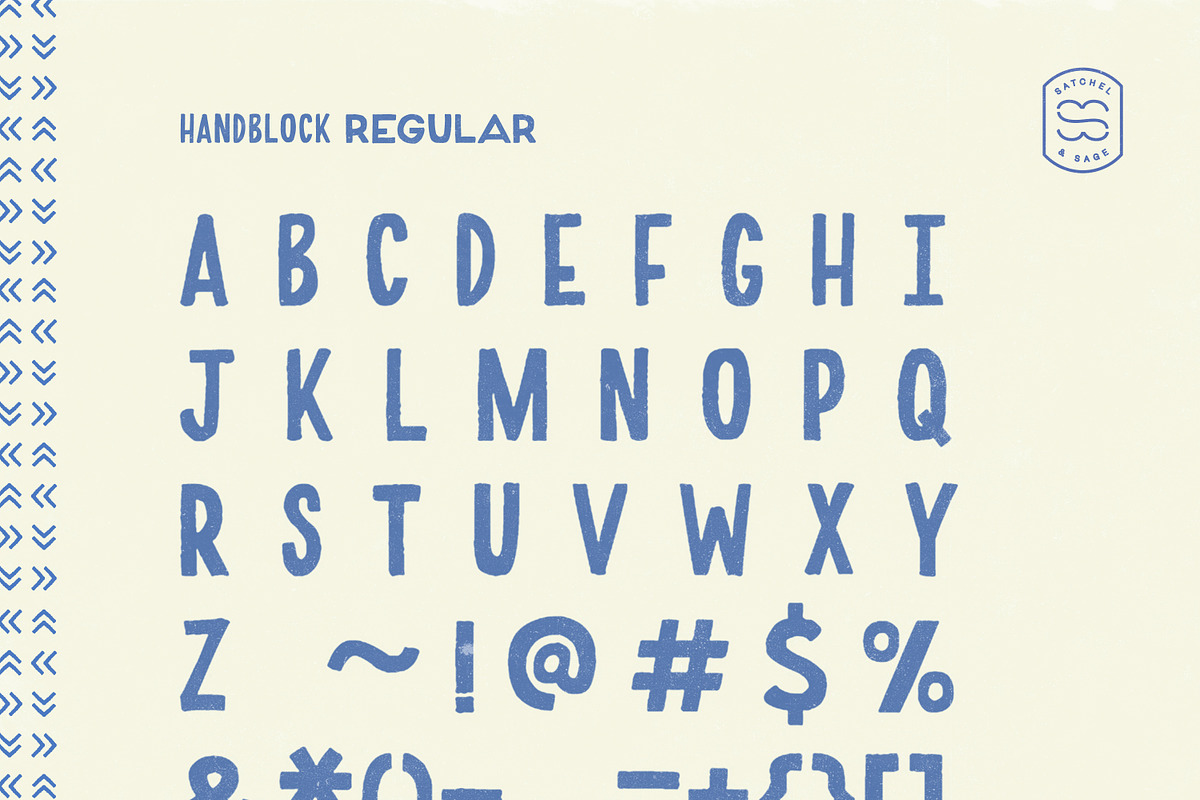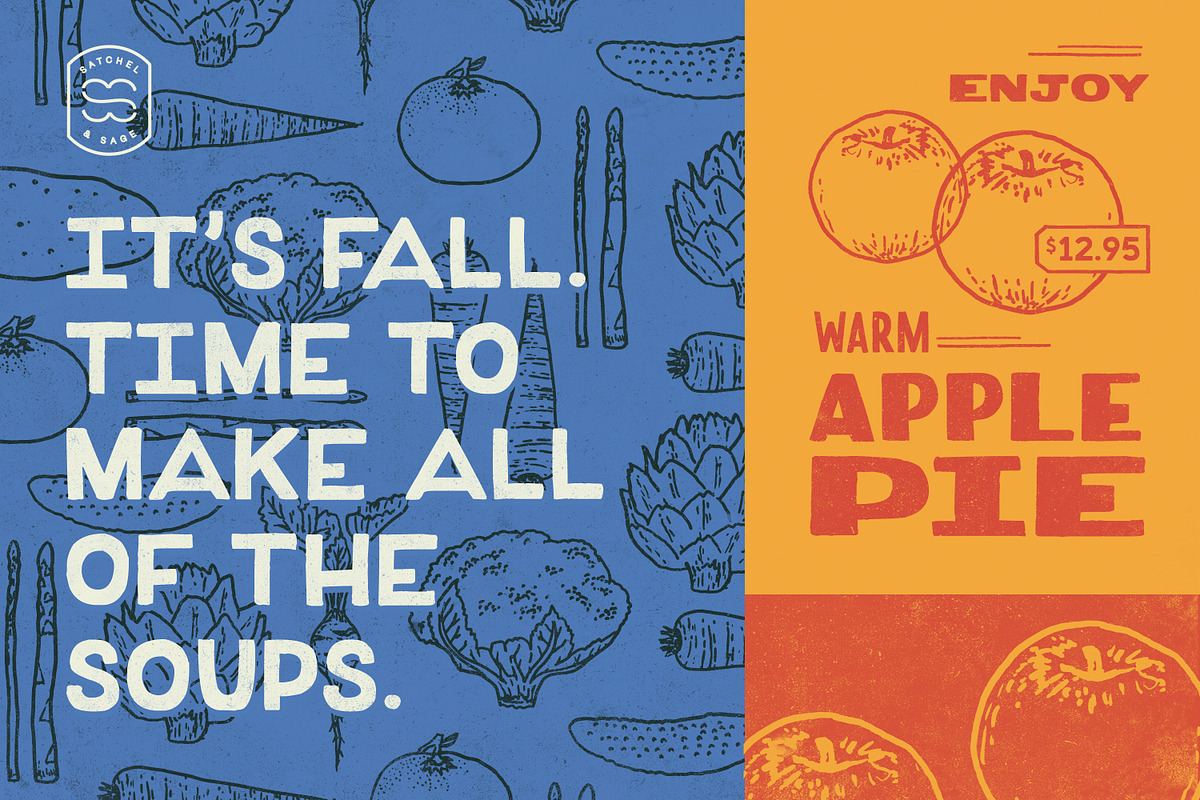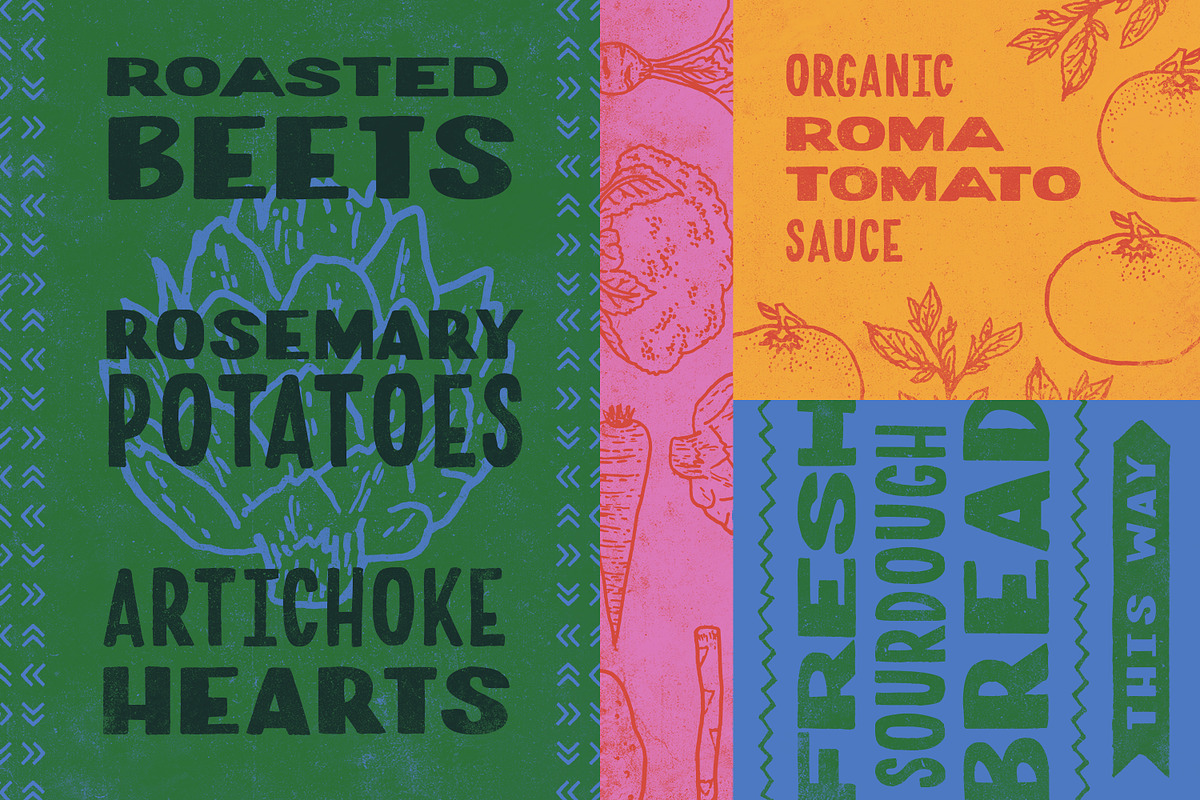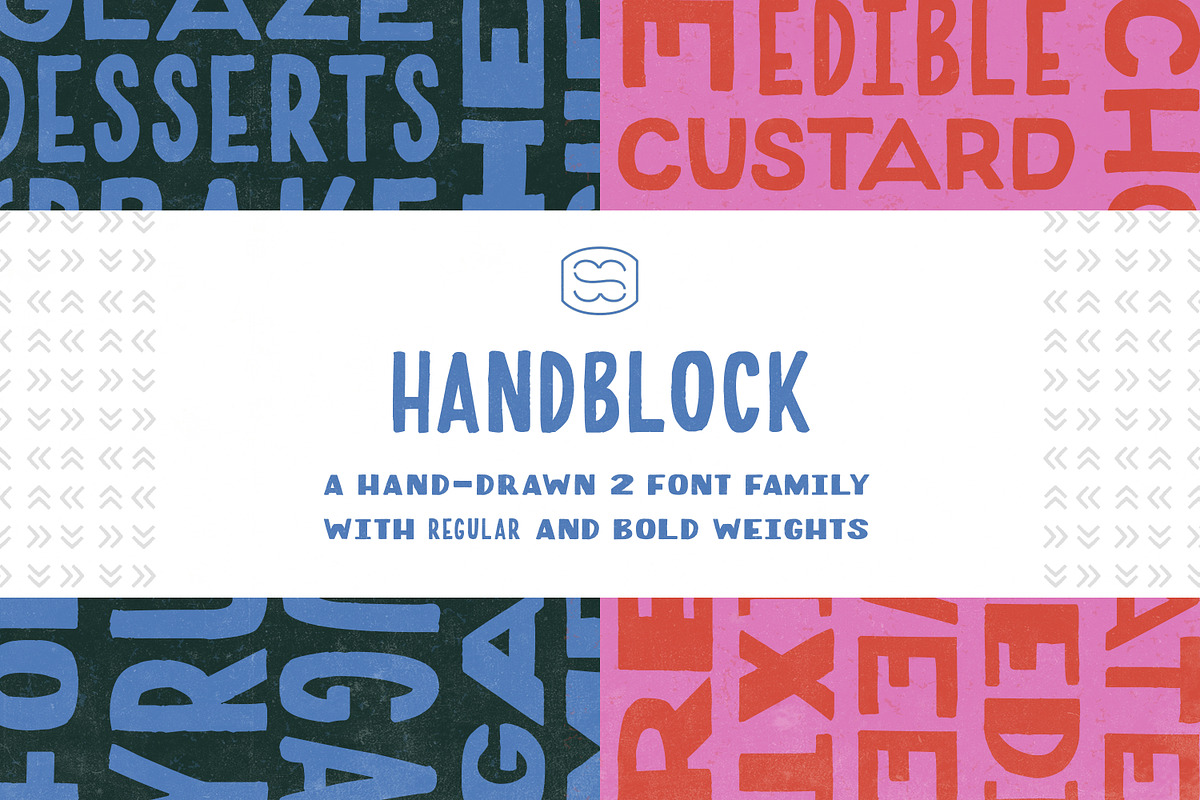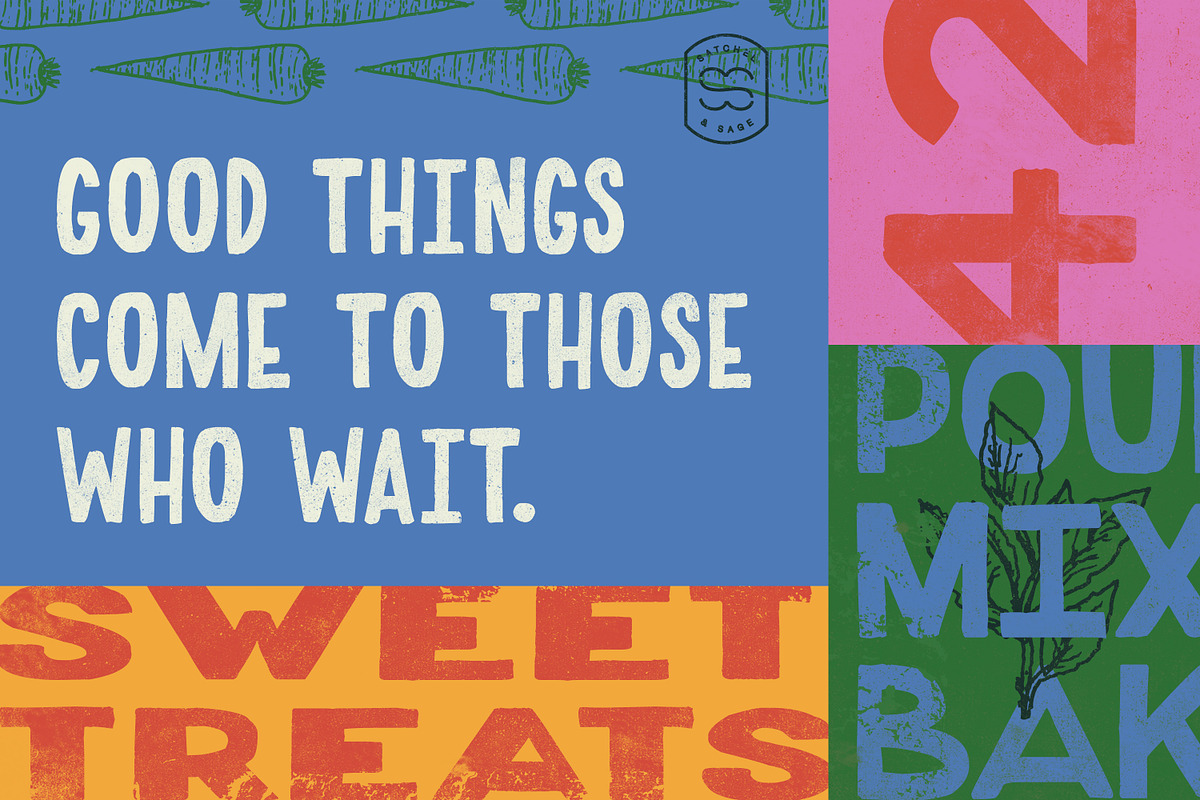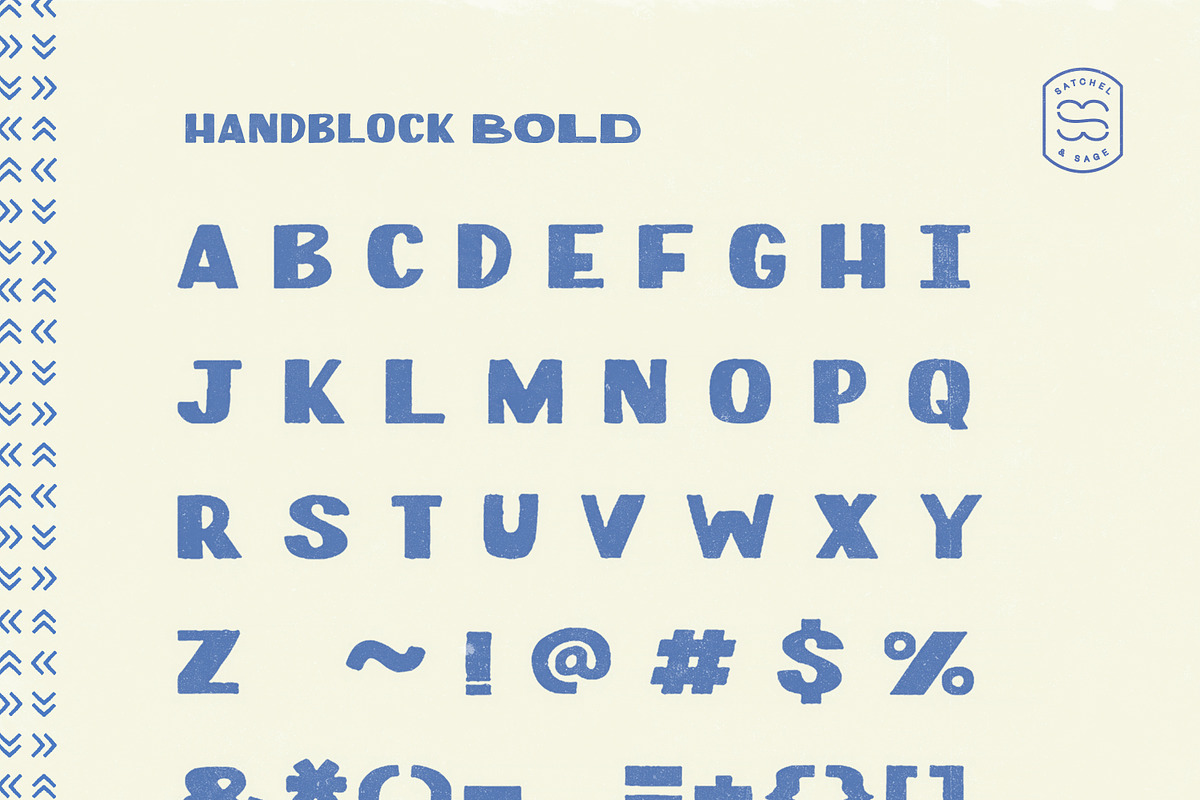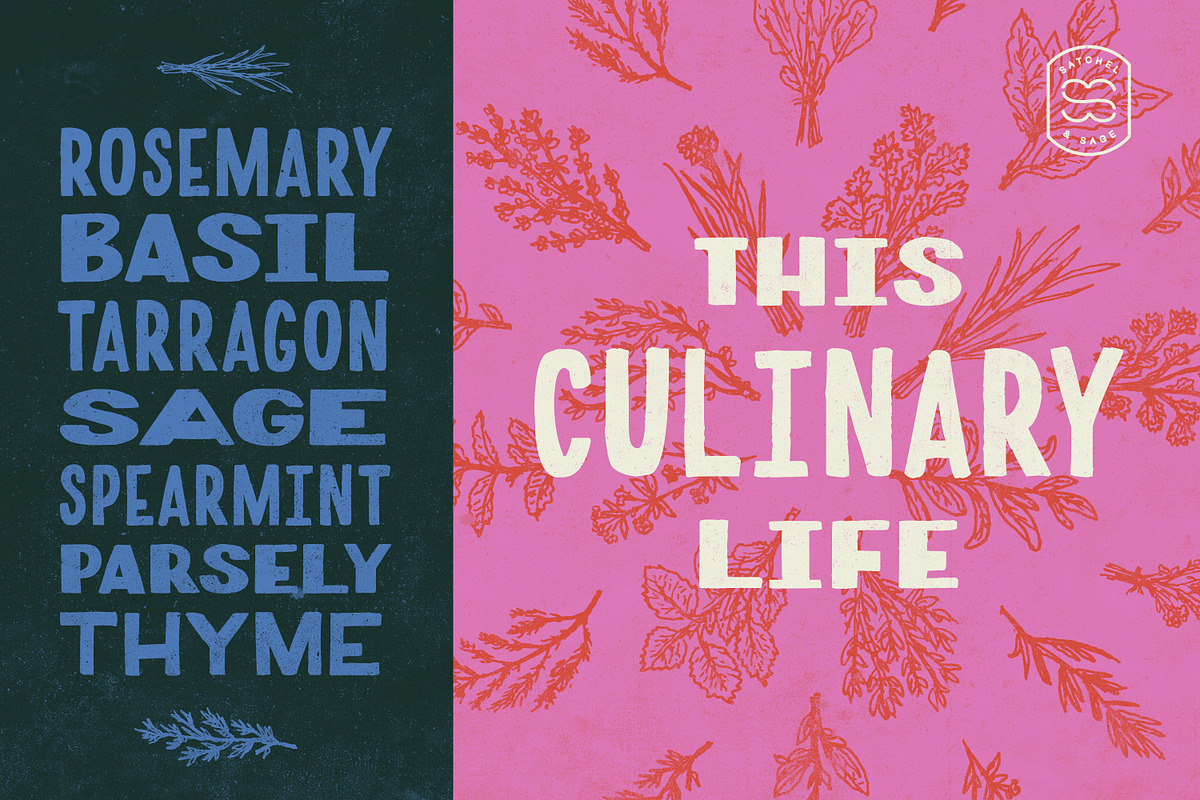
HandBlock Bold & Regular
HandBlock is a pair of playful, stout, hand-drawn display typefaces inspired by historic wood type printmaking. Both fonts offer two weights in each file — thinner for lowercase and thicker for uppercase — making it perfect to create multi-weight headlines and type treatments by mixing lowercase and uppercase characters. In short, HandBlock Regular and HandBlock Bold offer two sets of letterforms within each file respectively.